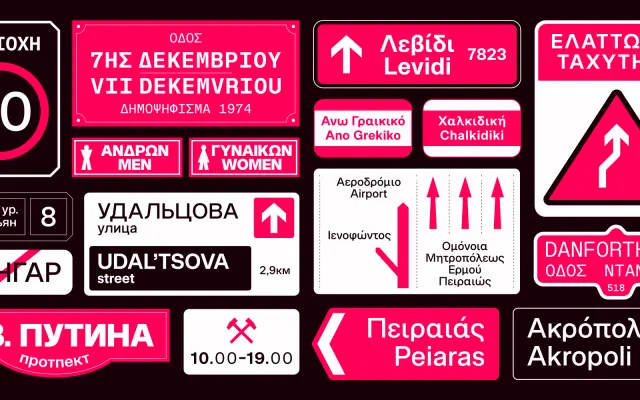
Fonetika
A geometric sans-serif from Tokotype with eight weights, matching italics and variable font versions, covering Latin Extended and Cyrillic.
The family spans ExtraLight to Black in both upright and italic cuts, with variable font counterparts for each. Specimen copy draws on Jakarta's public transit context, suggesting a design suited to signage, wayfinding and UI work. Language coverage extends across Latin Extended and Cyrillic, broadening its range for international use.
Clean, even stroke weight and geometric construction are evident across the specimen; the upright and italic families suggest a contemporary geometric sans-serif with variable font support.